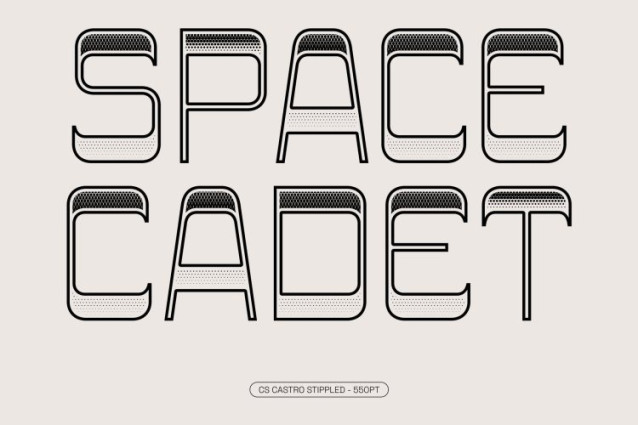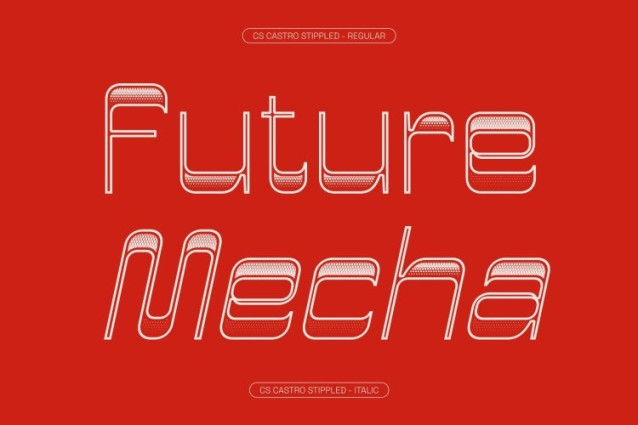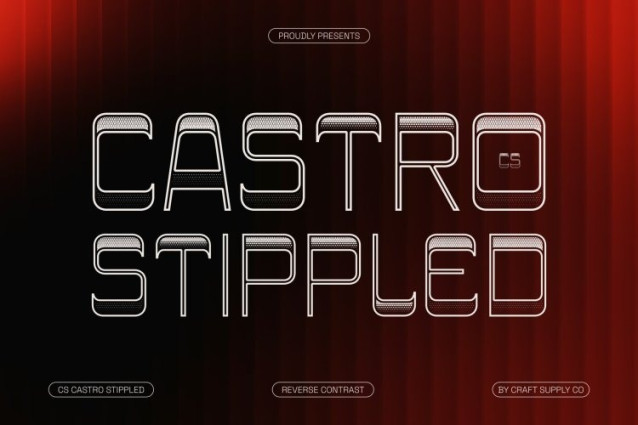
CS Castro Stippled Font
CS Castro Stippled Font – This is a distinctive sans-serif font that combines modern design principles with the unique visual rhythm of reverse contrast. Unlike traditional typography where vertical strokes are heavier, this style emphasizes thicker horizontal strokes, creating an unconventional and eye-catching effect.
Retro Influence with a Contemporary Twist
Inspired by vintage graphics and retro signage, this font brings nostalgic charm into a modern design context. Its clean sans-serif construction ensures clarity and balance, while the reverse contrast structure adds playful character and visual movement. This blend of past and present creates a fresh aesthetic that feels stylish, memorable, and full of personality.
Stippled Texture for Artistic Depth
Enhanced with a stippled effect, the font features a delicate dotted texture inspired by classic stippling and engraving techniques. This detail introduces subtle visual depth and a handcrafted feel, enriching the reverse contrast forms with a unique tactile quality. The textured surface adds character without compromising the font’s clean and modern readability.
Perfect for Bold Branding and Retro-Inspired Design
This is ideal for projects that require a distinctive and memorable typographic presence. It works beautifully for branding, posters, promotional graphics, packaging, and editorial headlines. With its combination of reverse contrast structure, retro spirit, and stippled texture, the font creates designs that feel expressive, stylish, and confidently unique.